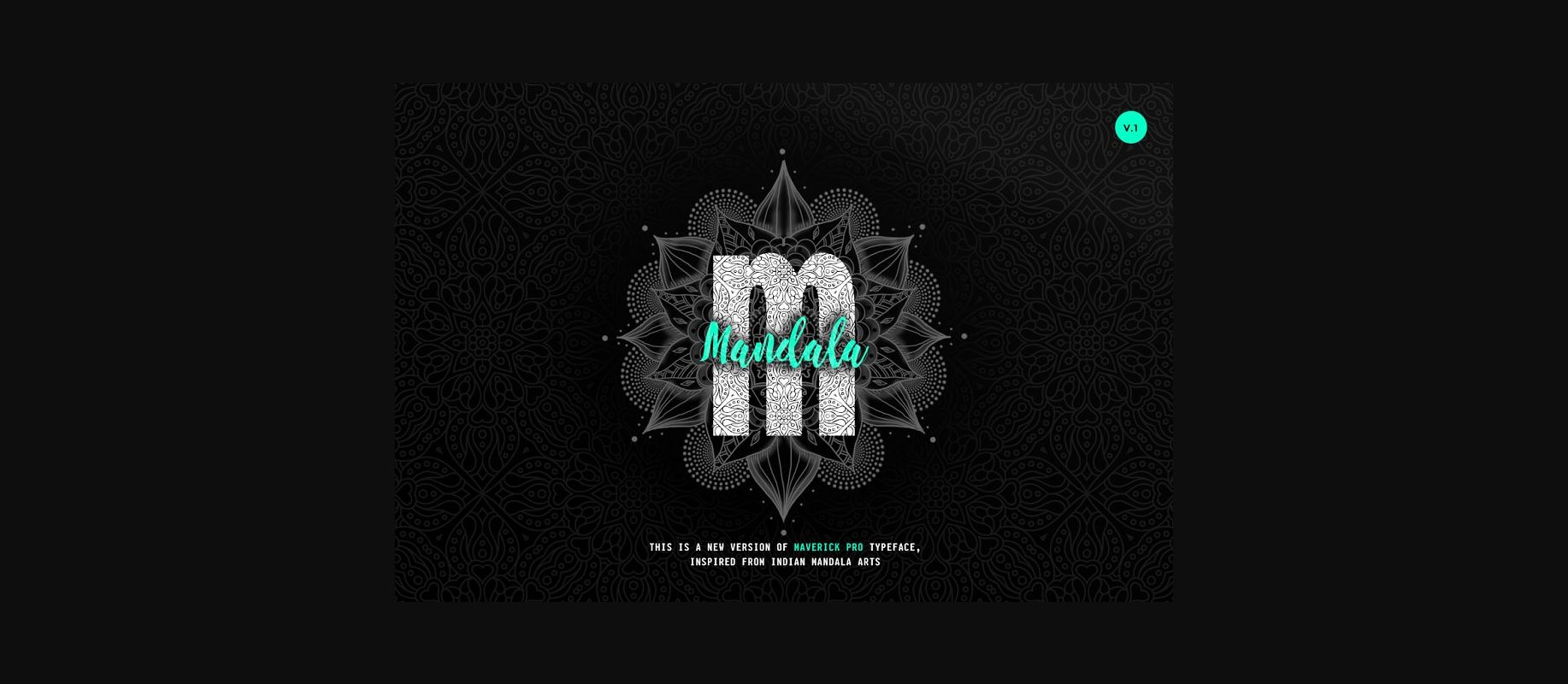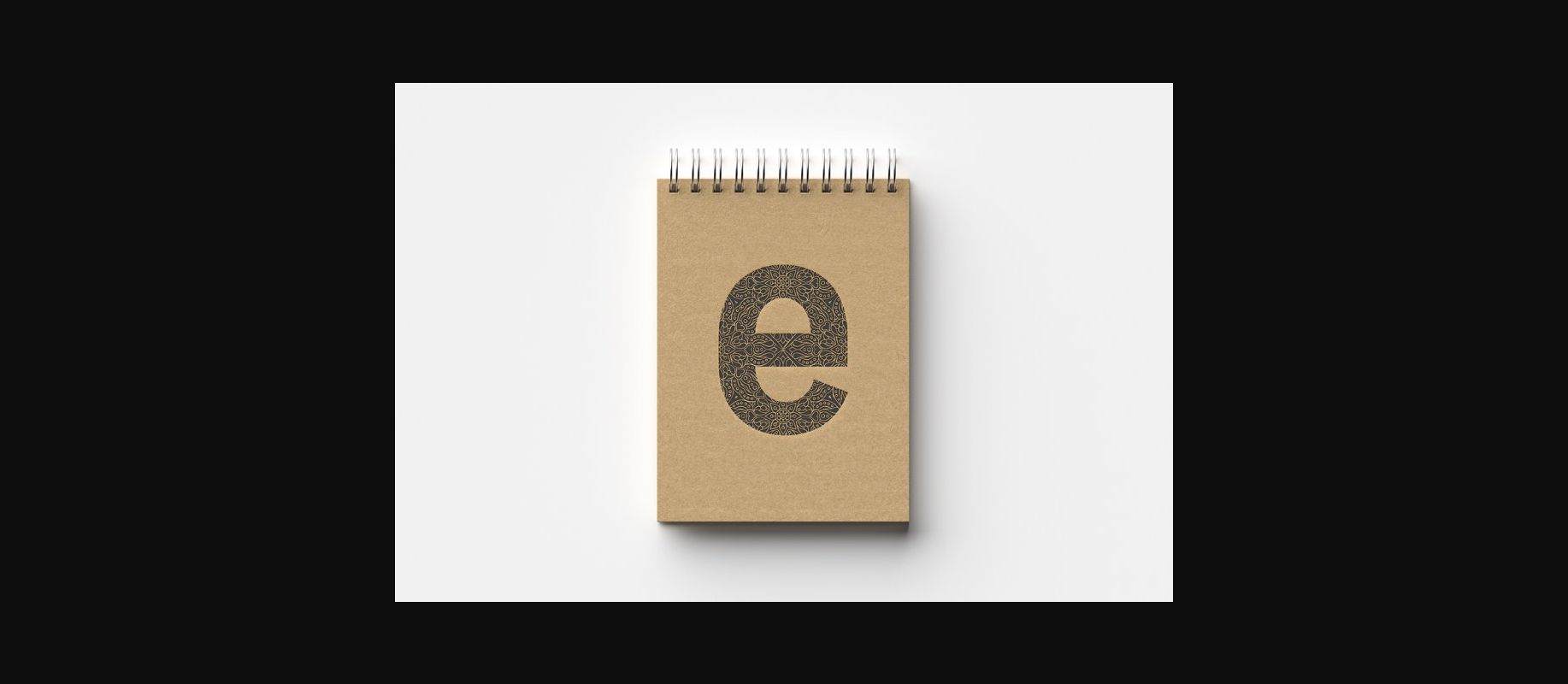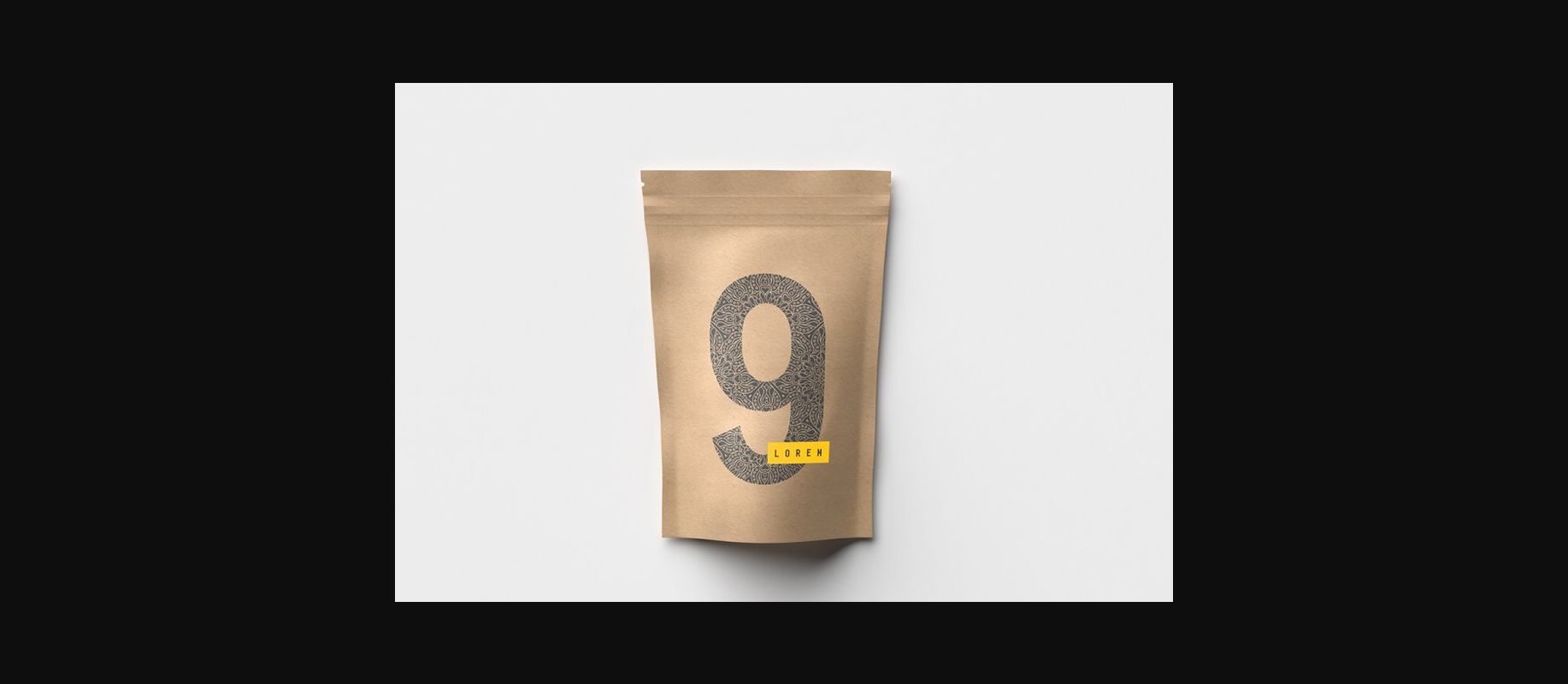
About Mandala Font
Mandala is an incredibly original decorative font, created to level up each of your designs. Bold and unique, this font will make your creations stand out!